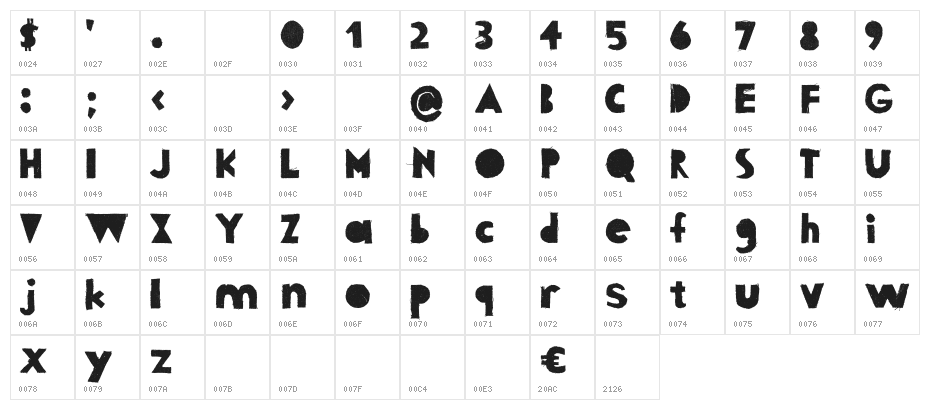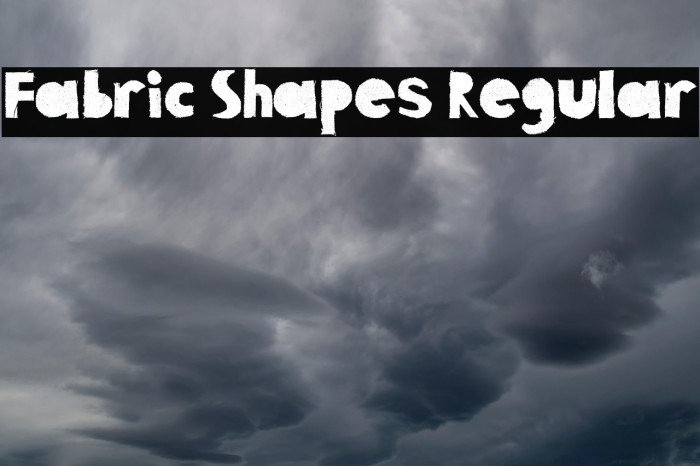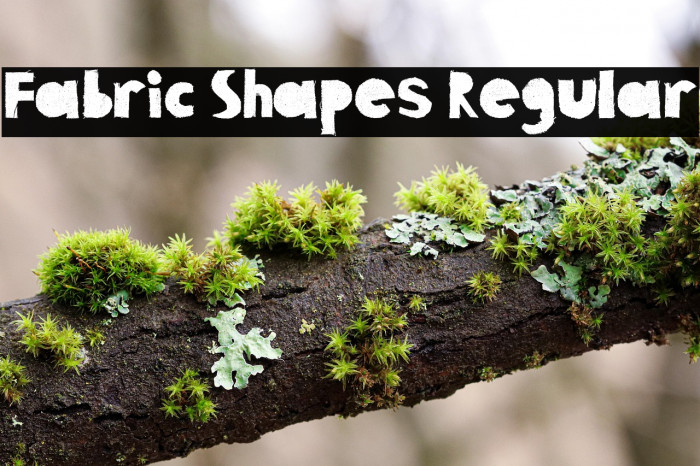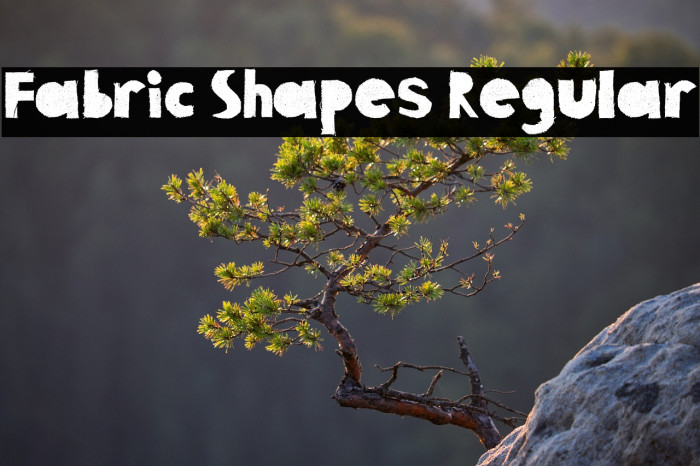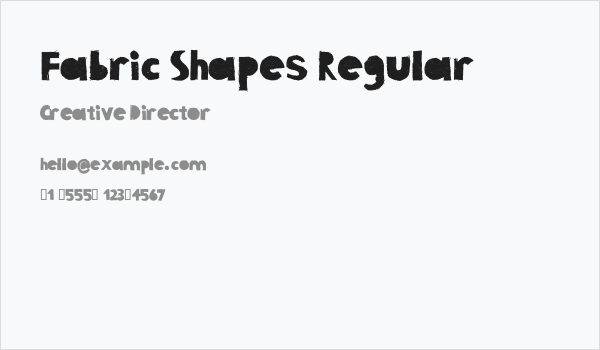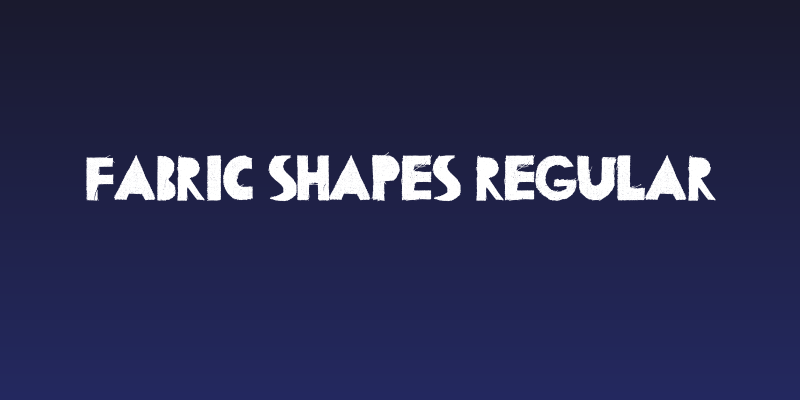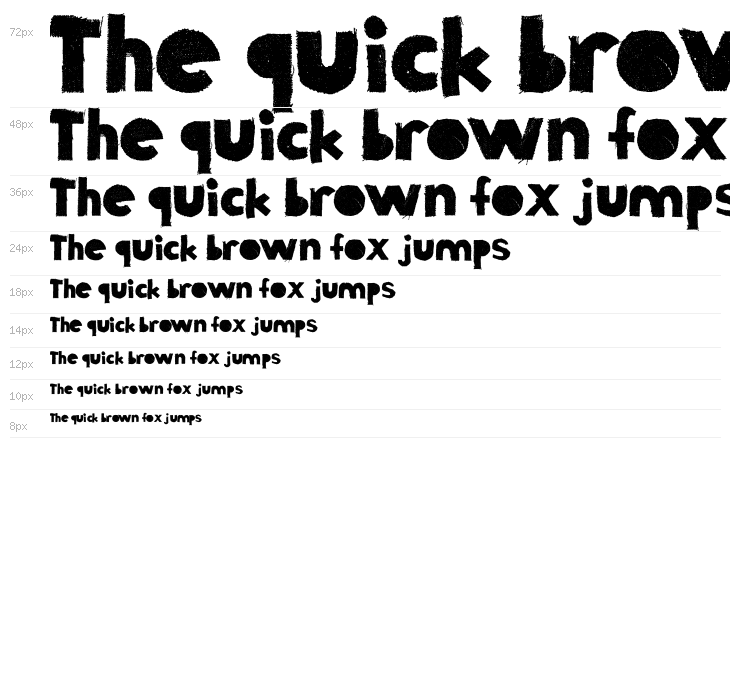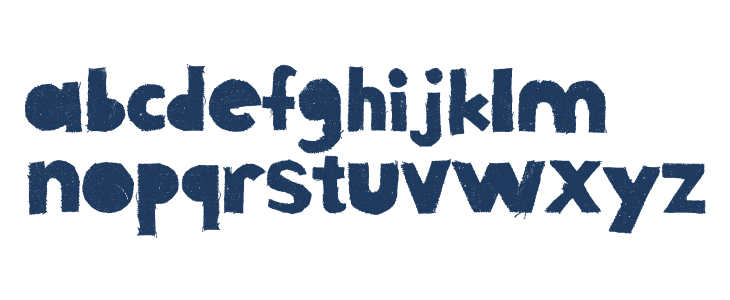
Fabric Shapes Regular Font
Fabric Shapes Regular Description
This font features a bold and textured appearance, reminiscent of fabric or hand-cut shapes. The characters are irregular and have a playful, artistic quality, with each letter appearing as if it has been crafted from a textured material. The uppercase and lowercase letters maintain a consistent style, with a strong presence and unique character shapes. The numbers and special characters follow the same design ethos, adding to the font's cohesive look. This font is ideal for projects that require a distinctive and creative touch.